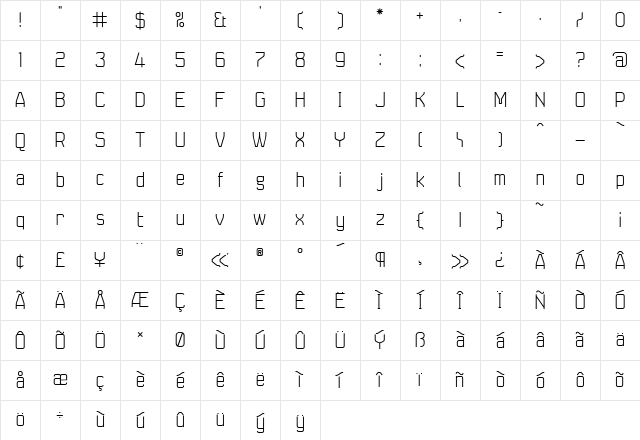
Seize Light Free Font
Seize Light
Seize Family
Seize Light
Design Context for Seize
Seize is a composed and adaptable typeface that performs quietly and consistently across a wide range of design contexts. Its slender proportions lend an understated elegance to any composition.